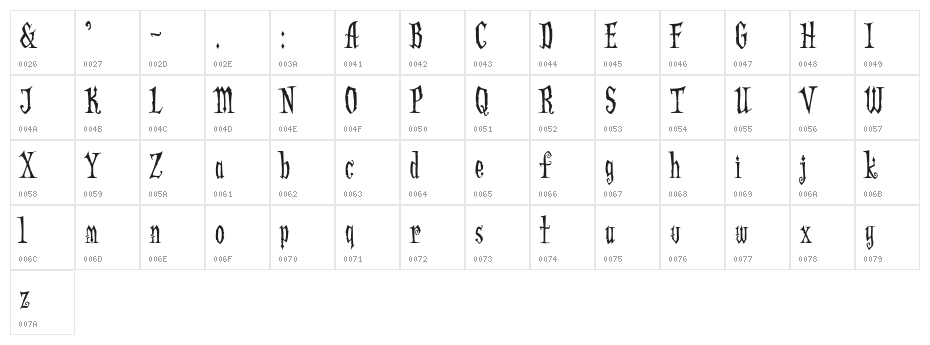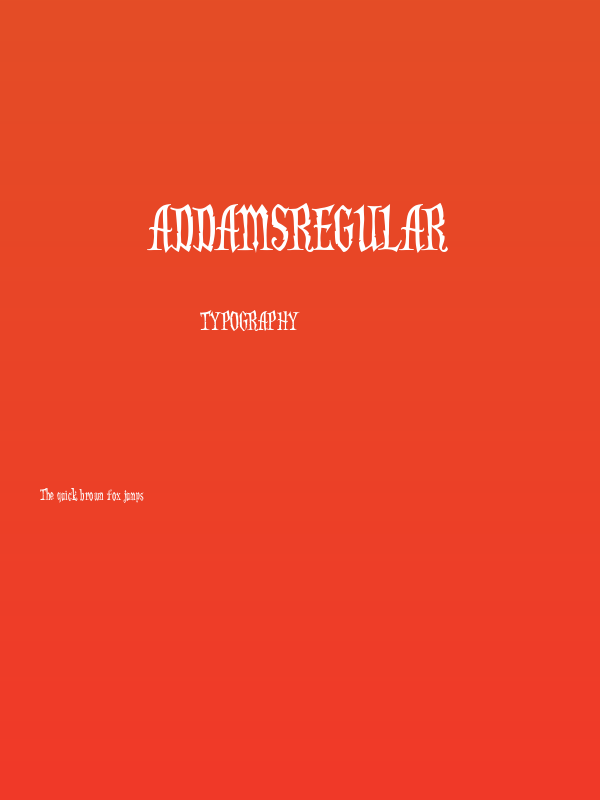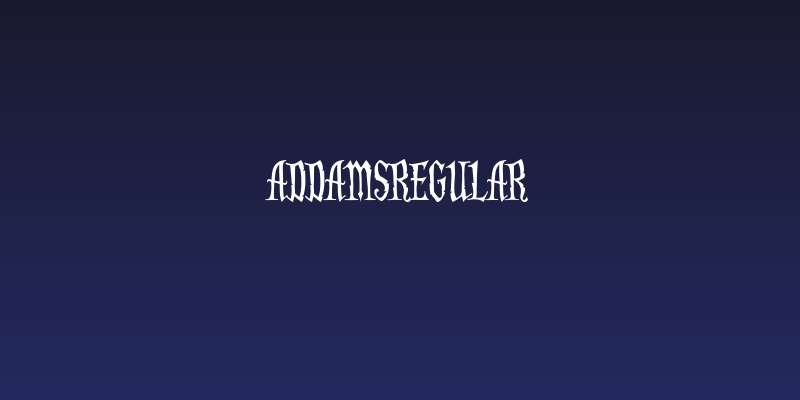
AddamsRegular Font
AddamsRegular Description
This font features a distinctive Gothic style with sharp, angular edges and a dramatic flair. The uppercase letters are bold and commanding, with intricate details that give them a medieval appearance. The lowercase letters maintain the same Gothic influence, with unique flourishes and a slightly condensed form. The numbers and special characters are consistent with the overall theme, offering a cohesive look. This font is perfect for projects that require a touch of mystery or a vintage, eerie aesthetic.
| Width | Condensed |
| Overall Style | Vintage |
| Proposed Projects | Ideal for Halloween-themed designs, movie posters, book covers, or any project needing a mysterious, vintage touch. |